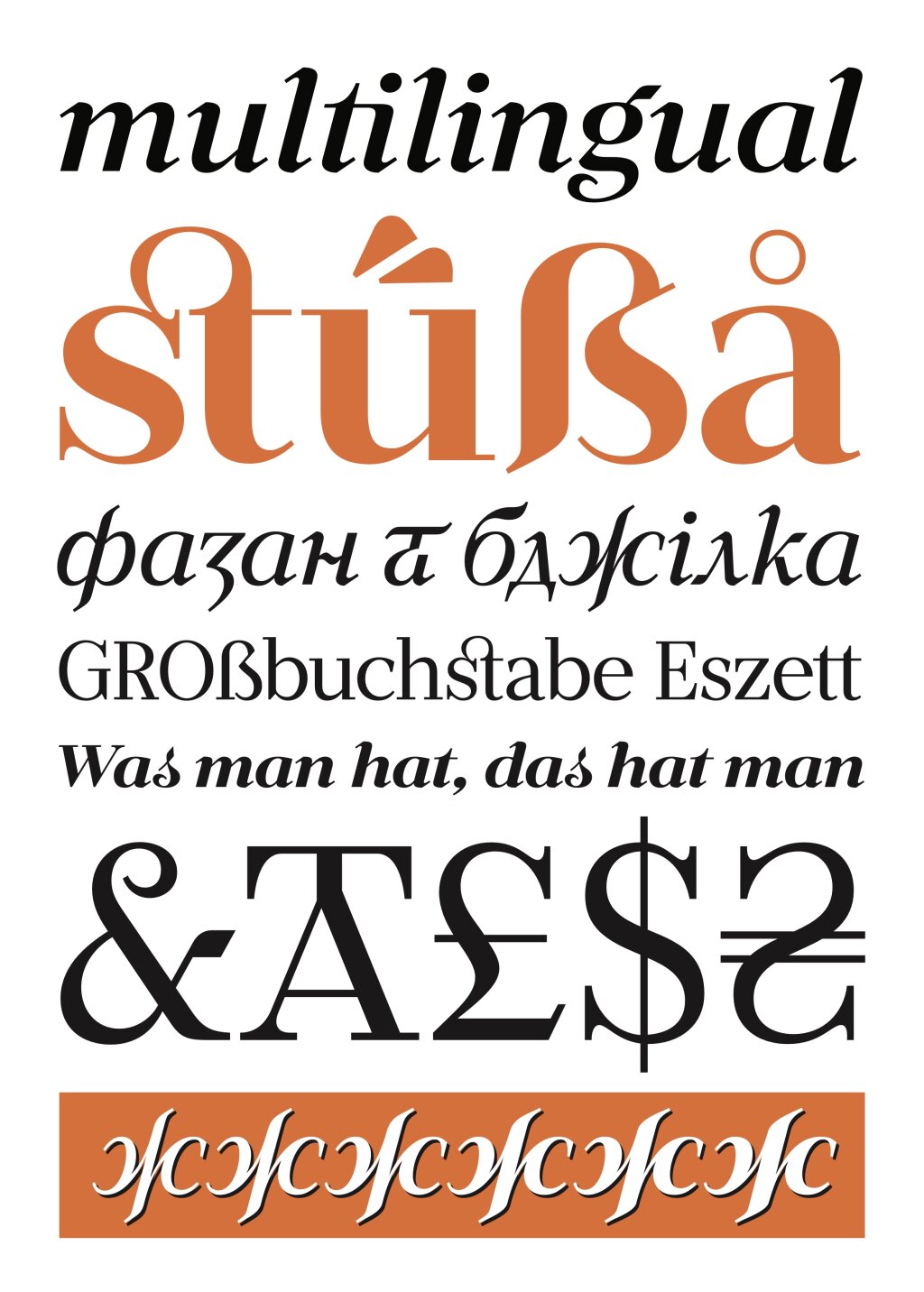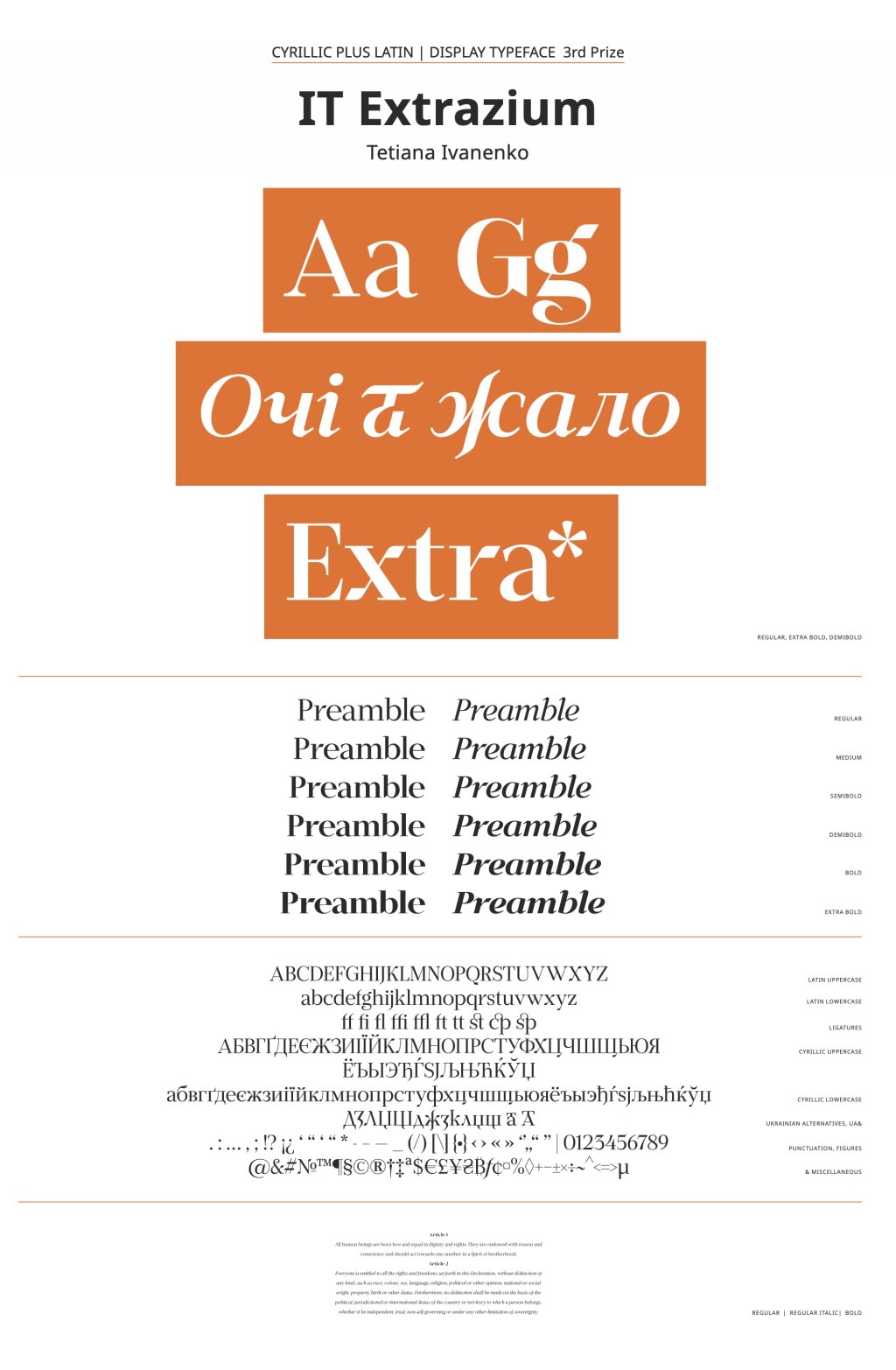
IT Extrazium
by Tetiana Ivanenko
Cyrillic
An elegant and slightly brutal, the font has all Open Type Latin Pro characters, Cyrillic, Ukrainian alternates + Experimental Ukrainian two- syllable ampersand for capital and lowercase letters (TA, та). The font has 12 styles normal and italic from Regular to Extra Bold. Supports change of punctuation depending on the case. 2022–2023